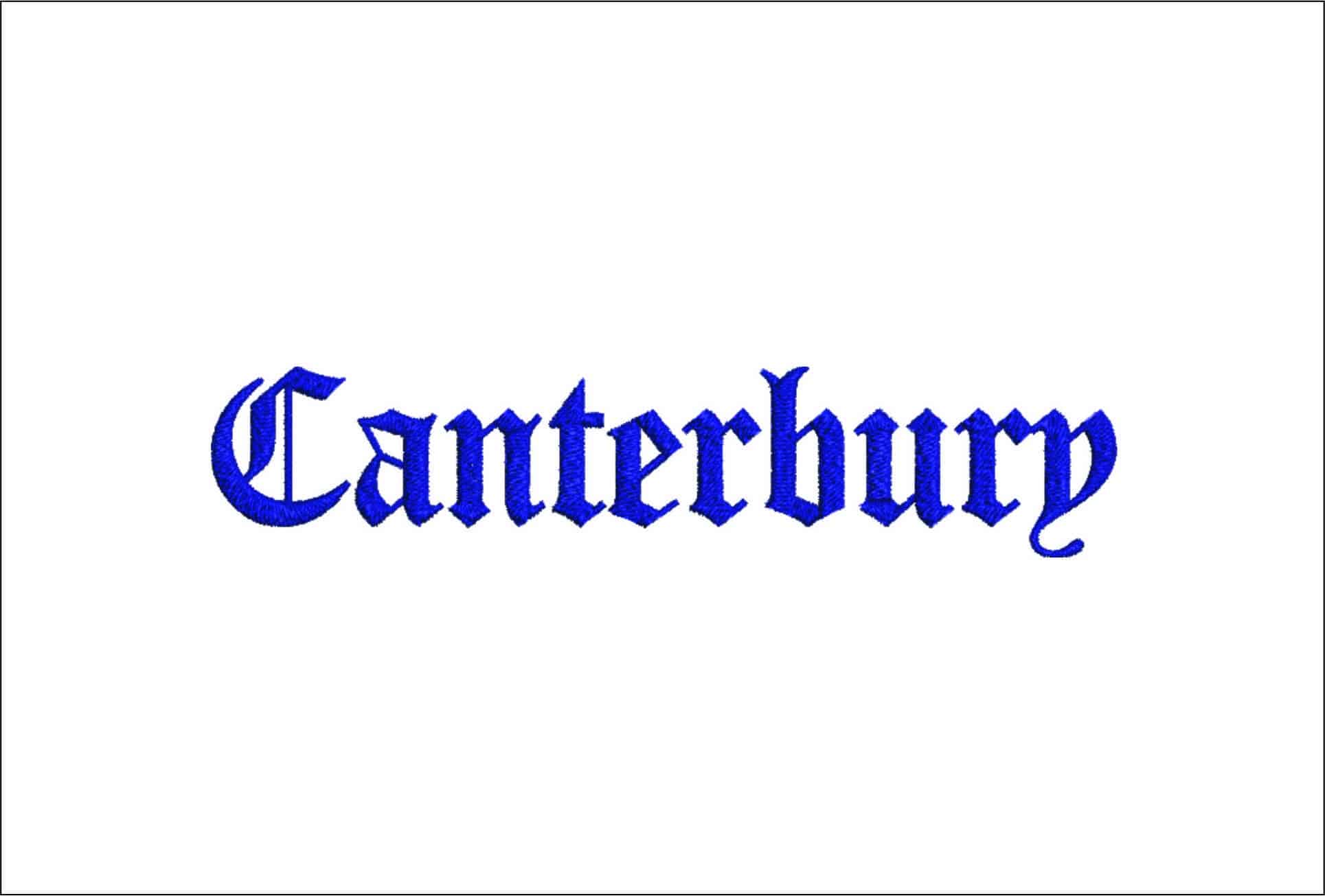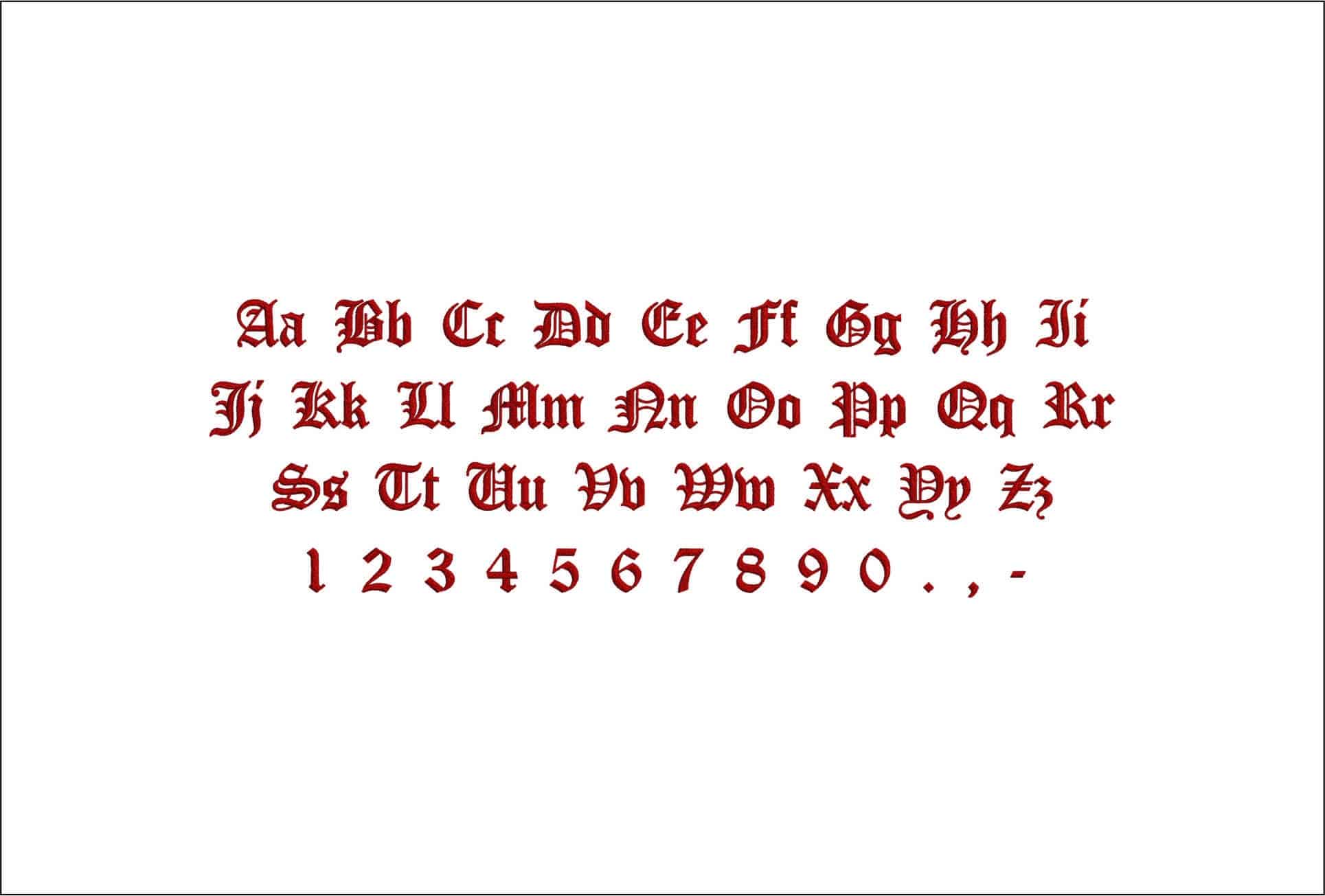
A richly gothic embroidery alphabet with ornate Old English letterforms for bold monograms, names and statement stitching.
Bring gothic character to your stitching with the Canterbury font, an Old English embroidery alphabet with sharply ornate letterforms and a strong blackletter feel. The sample shows upper and lower case pairs, numbers and simple punctuation, so it suits anyone who wants more than just initials. If you like lettering that looks formal, historic and a little dramatic, this set gives names, monograms and short words real presence.
It works especially well on jacket backs, sweatshirt fronts, tote bags, bookmarks, cushions and darker linens where the pointed strokes can stand out cleanly. The style is bold enough for single initials on cuffs and collars, but it also carries well across surnames, house names or short phrases. Use it when you want text to feel decorative in its own right, rather than just functional labelling.